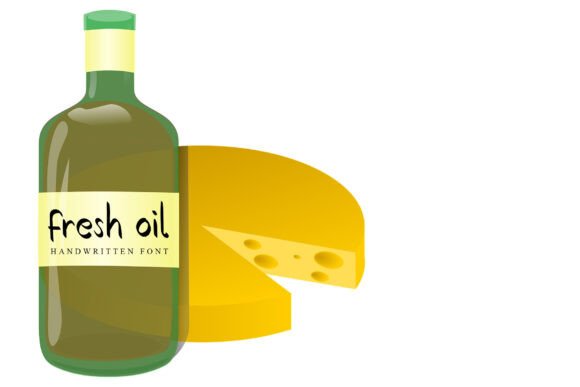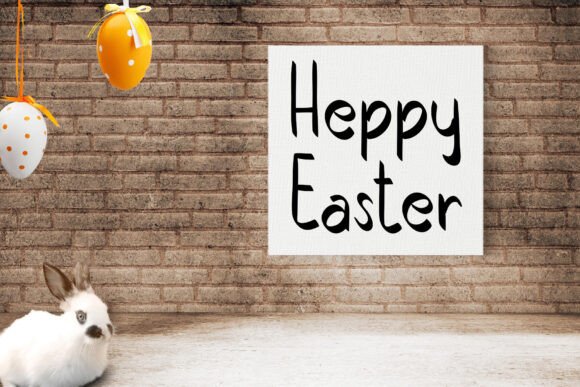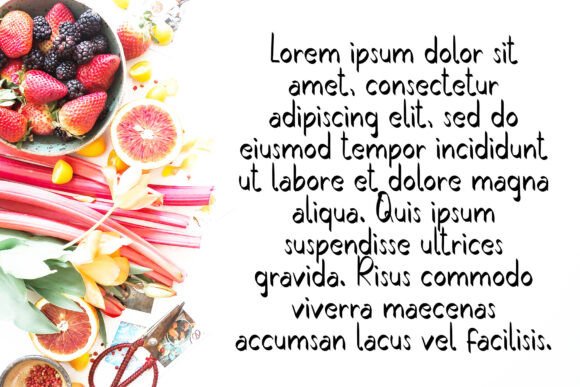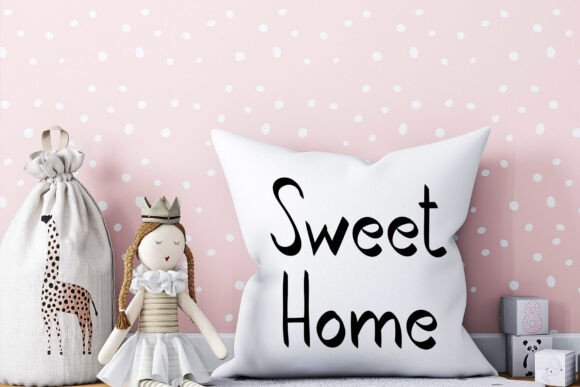
Discover the Elegance of About Font: Elevate Your Designs with Sophistication
In the world of typography, fonts play a pivotal role in conveying messages, evoking emotions, and adding aesthetic value to any design project. Among the myriad of fonts available, “About Font” stands out as a unique and elegant choice, meticulously crafted to meet the needs of designers, crafters, and anyone looking to add a touch of sophistication to their work. In this article, we’ll delve into the features, benefits, and applications of About Font, exploring how it can elevate your designs and make them truly unforgettable.
The Making of About Font
About Font is not just another typeface; it’s a masterpiece created with a professional hand touch, ensuring each letterform exudes elegance and refinement. The font’s design is rooted in a deep understanding of typographic principles, combined with a dash of creativity and innovation. This careful craftsmanship results in a font that is not only visually appealing but also highly legible across various applications.
One of the standout features of About Font is its versatility. Whether you’re working on a wedding invitation card, a birthday greeting, or any other type of party invitation, this font is perfectly suited to convey your message with style and grace. Its adaptability extends beyond greeting cards; it’s also an excellent choice for school assignments, creative projects, and any other important events where you want to make a lasting impression.
Applications of About Font
The applications of About Font are vast and varied. Here are a few areas where it truly shines:
- Wedding and Event Invitations: Add a touch of elegance to your wedding invitations, save-the-date cards, and other event-related materials.
- Stationery and Greeting Cards: From birthday cards to thank-you notes, About Font brings a level of sophistication that’s hard to match.
- School and Creative Projects: Stand out from the crowd with beautifully crafted school assignments, presentations, and creative projects.
- Digital Content: Enhance your blog posts, social media graphics, and website content with a font that’s both elegant and easy to read.
What Makes About Font Special?
About Font is carefully crafted with attention to detail, ensuring it meets the highest standards of typographic excellence. Here are a few features that make it special:
- Professional Design: Crafted with a professional hand touch for unparalleled elegance.
- Legibility: Designed to be easy to read across various sizes and applications.
About Font is more than just a typeface; it’s a tool that can transform your designs, adding a layer of elegance and sophistication that’s sure to captivate your audience. Whether you’re a seasoned designer, a crafter, or someone looking to elevate their creative projects, About Font offers a world of possibilities. With its professional design, versatility, and accessibility, it’s an excellent addition to any creative toolkit. So, why settle for ordinary when you can make your designs extraordinary with About Font?